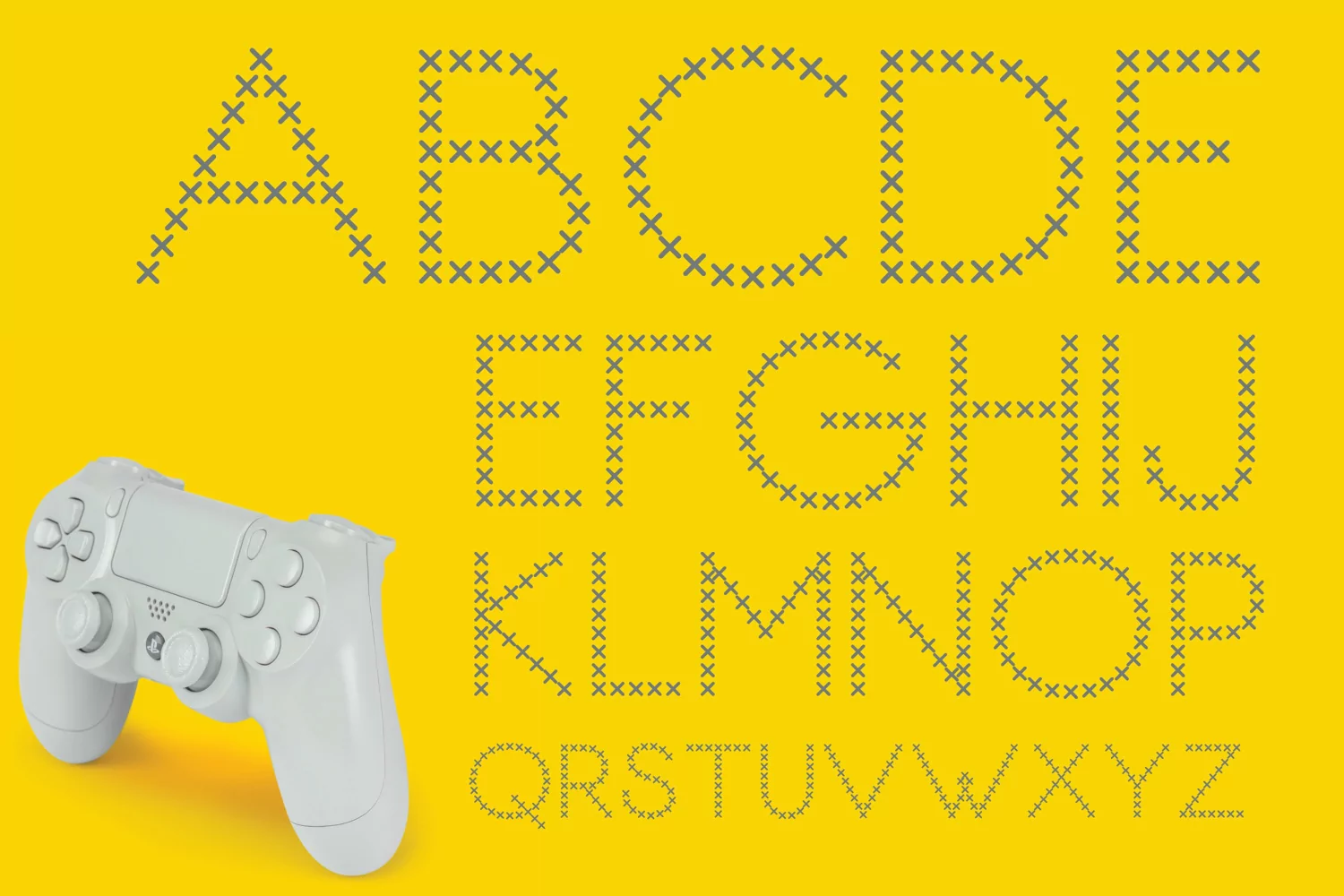
Cross Game Fun Font for Projects
Presenting Cute font for you. This Special Paper Cut Cross Game Fun Font for Projects can be used in tons of projects specially in child and new born projects. You can use it for craft purpose and this will looks great on shirts, printing material and other stuff.
2- Letters A to Z and 0 to 9
3- Super Cute and Creative, Papercut Style